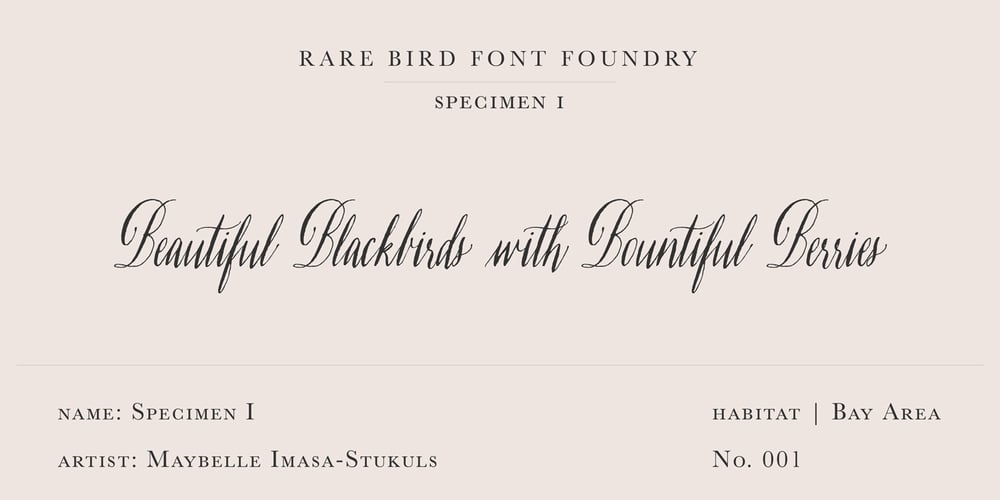
Rare Bird Specimen I Font Family was designed by published by Rare Bird Font Foundry. Rare Bird Specimen I contains 1 styles and family package options. RARE BIRD SPECIMEN I From the the doyenne of modern calligraphy – Maybelle Imasa-Stukuls – we bring you Specimen I, a charming script lettered in Ms. Imasa-Stukuls’ signature hand. OBSERVATIONS Specimen I stands on its own. Its subtle nuances make it stand out in a flock of fonts. It is easily recognizable, but it is never one to be too showy. Give it plenty of white space, so every quirk and curve can be noted. DEFINING CHARACTERISTICS Opentype programming, old style numerals, in and out-stroked letter forms at beginning and end of words, six alternate lowercase t cross-strokes, Roman numerals, seamlessly connecting script ligatures, alternate lowercase letters, realistic double-letter ligatures, basic Latin encoding. POTENTIAL SIGHTINGS Book covers, children’s literature, broadcast titling, unique product designs, website titles, logo designs, restaurant menus, and gourmet food labels.